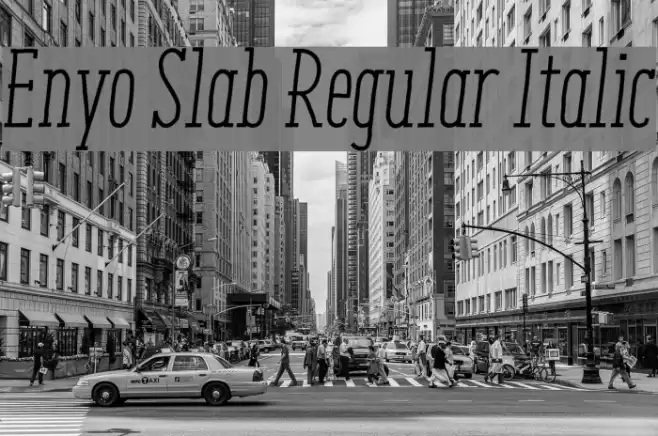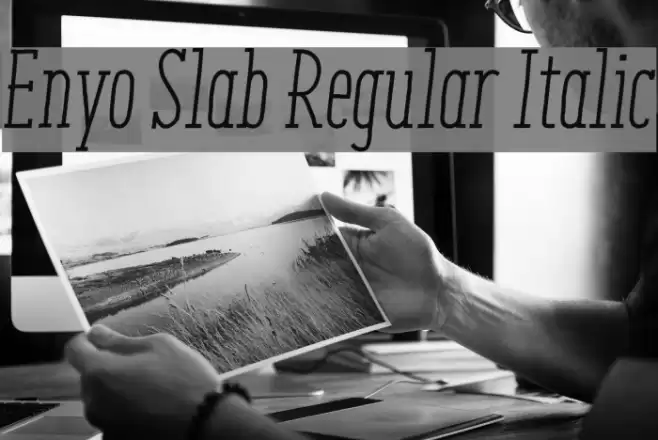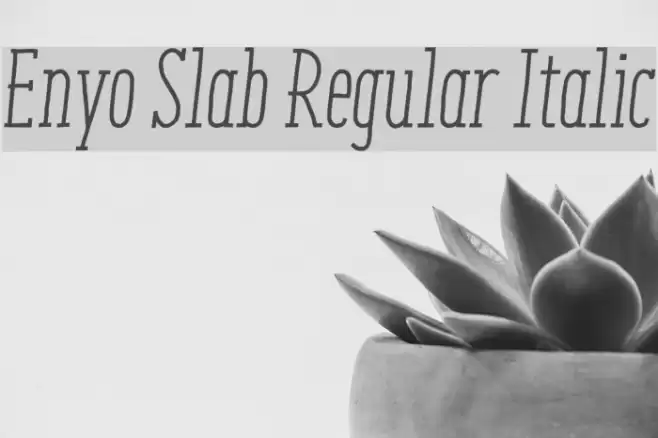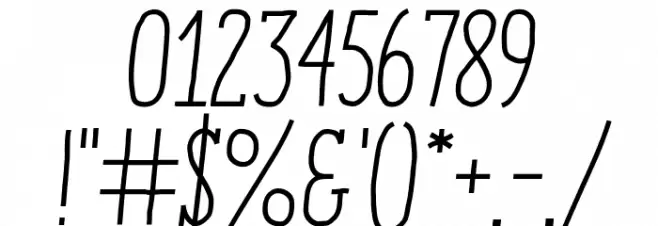
Enyo Slab Regular Italic Font
Enyo Slab Regular Italic Description
This font features a distinct slab serif style with a noticeable italic slant, giving it a dynamic and elegant appearance. The serifs are pronounced yet refined, adding a touch of sophistication to the overall look. The characters are well-proportioned, maintaining a balance between the thick and thin strokes, which provides a medium contrast. The font has a slightly condensed width, allowing for efficient use of space without compromising readability. The character spacing is normal, ensuring clarity and legibility across various sizes. Its versatile nature makes it suitable for both formal and creative applications, offering a modern twist on classic serif typography.
A dynamic slab serif font with an elegant italic slant and medium contrast from Uncategorized fonts.
- Proposed Projects: Ideal for editorial design, book covers, branding, and sophisticated advertising campaigns.